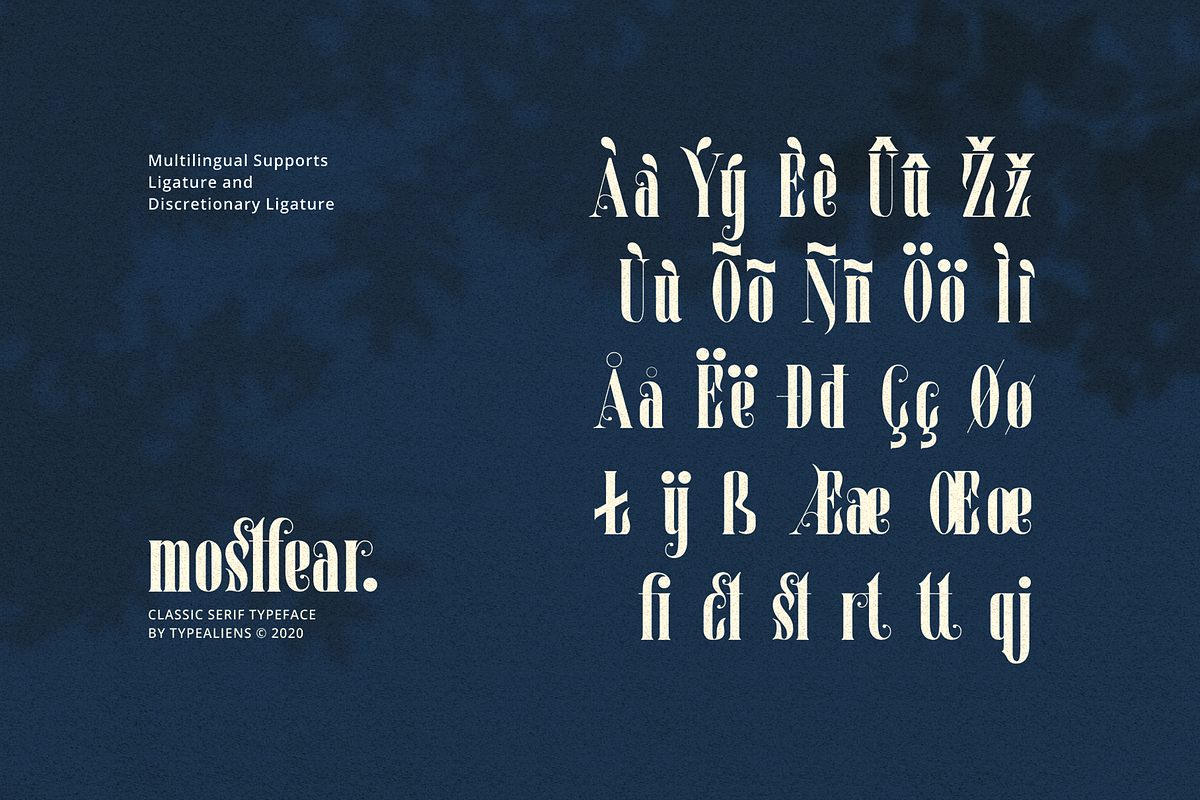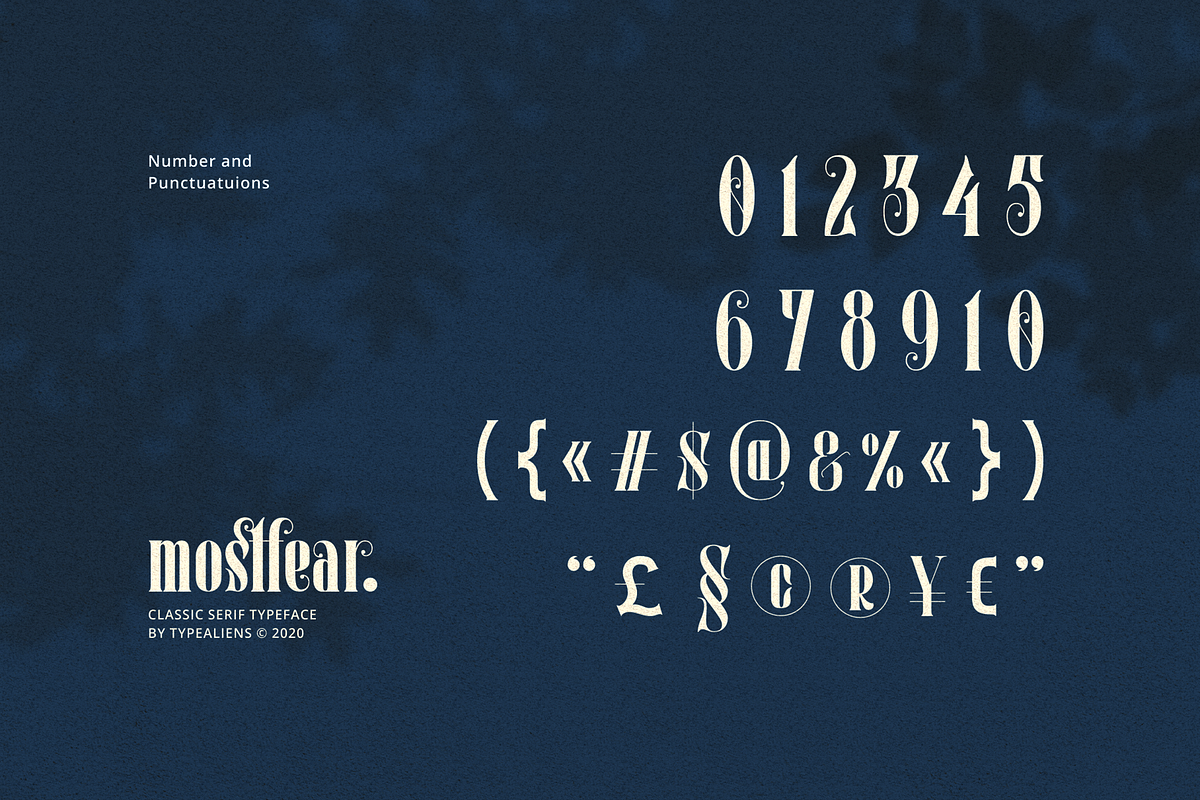
Mostfear for Elegant Vintage Logo
MOSTFEAR
is a classic serif font that is able to support the modern era. It is suitable for magazine cover designs as headlines and sub-headlines, besides of course because this is a display font it will also be good for your logo design, or some print designs such as business cards, letterhead, envelopes, folders, and newspaper headlines.
Even though it is in a classic style, this font will be very beautiful if you want a clean and elegant modern design.
Features : Alternate Characters. Ligatures. Discretionary Ligatures. Support Multilingual Characters.